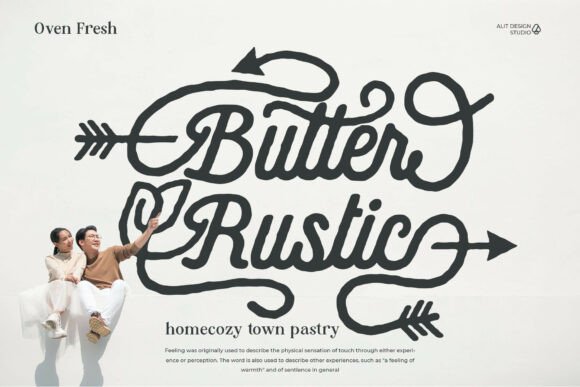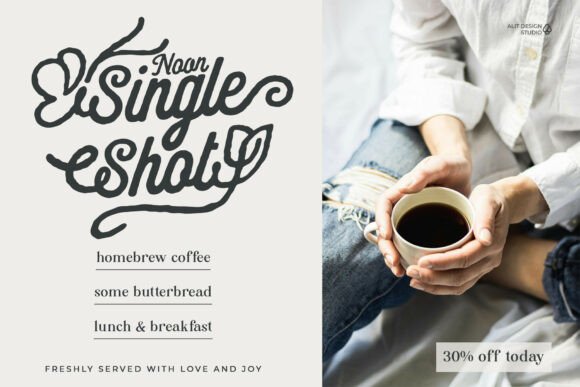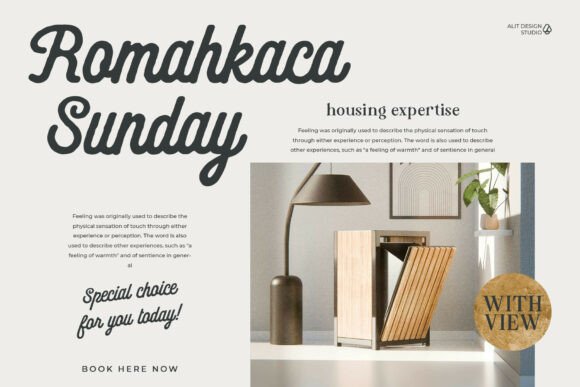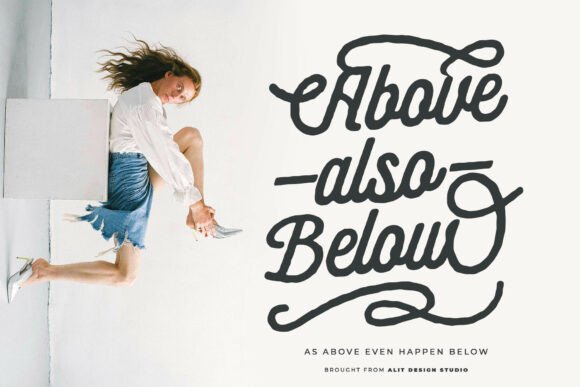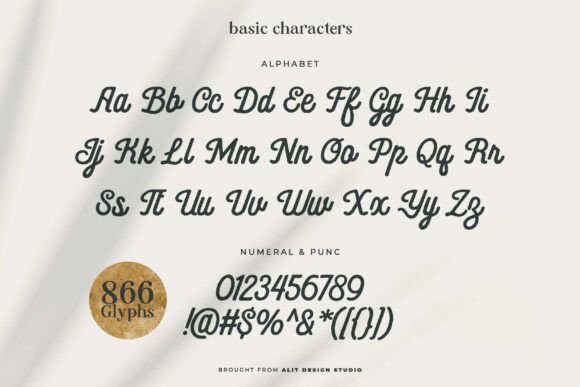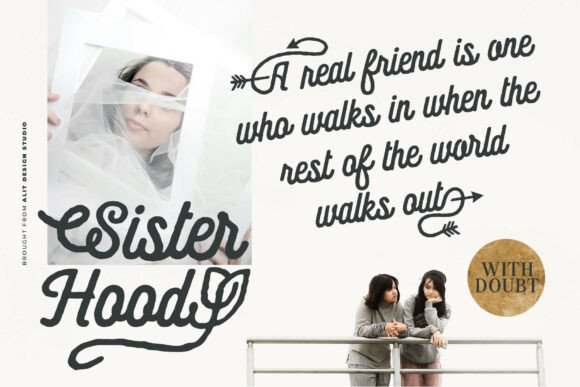
Introduction to Hunter Flora Font
Do you remember the moment when you stumbled upon the perfect font for your creative project? The one that made your design come alive, transporting you to a world of elegance and sophistication? For many designers, that moment is about to become a reality with the introduction of the enchanting Hunter Flora Font.
| 📌 Product Name | Hunter Flora Font |
| 👤 Author | Alit Design |
Brought to you by Alit Design Studio, Hunter Flora Font is a beautifully crafted handwritten script that embodies the essence of organic nature and playful charm. Its extensive customization options make it the perfect design resource for any project, whether it’s a feminine logo, organic skincare packaging, or a heartfelt quote poster.
What sets Hunter Flora apart is its versatility and high quality, making it a valuable asset for designers who demand the best. With 12 incredible Stylistic Sets and a transparent background, you can easily adapt this font to your vision and bring your creative ideas to life. And the best part? You can download it for free, making it an essential addition to your design arsenal.
Key Features of Hunter Flora Font
- High-quality, unique design ideal for creative projects, such as floral arrangements, garden designs, and nature-inspired art.
- Features a transparent background, allowing for easy layering and customization in various design scenarios.
- Designed with high resolution in mind, suitable for use in print materials, web designs, and digital projects.
- Unique characteristics include elegant, flowing lines and intricate details, perfect for adding a touch of sophistication to any design project.
Honest Review: Hunter Flora Font
I recently had the chance to work with the Hunter Flora Font, and I must say it’s a beautiful addition to any creative project. ✨ The high-quality design and intricate details make it perfect for a wide range of applications, from editorial to branding.
One of the standout features of the Hunter Flora Font is its transparent background, which allows for seamless integration with any design resource. This makes it incredibly versatile and easy to use.
Here are some of the things that work well with the Hunter Flora Font:
- High-quality design with intricate details
- Perfect for a wide range of creative projects
- Not suitable for projects that require bold or dramatic font styles
Overall, I’m really impressed with the Hunter Flora Font. It’s a fantastic design resource that’s perfect for any creative project. If you’re looking for a high-quality font with a unique touch, I highly recommend giving it a try.
Tips for Getting the Most Out of Hunter Flora Font
For the best results, use the Hunter Flora Font with a transparent background to create a clean and modern design. Experiment with different font sizes and styles to add visual interest to your project.
The Hunter Flora Font is perfect for creative projects, such as wedding invitations, business cards, and social media graphics. Its high-quality design makes it an ideal choice for designers and non-designers alike.